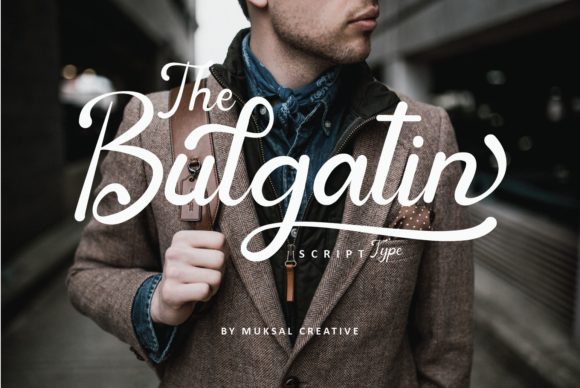
The Bulgatin Font: Elevating Designs with Elegance and Charm
I still remember the design project that led me to discover the Bulgatin font. I was working on a wedding invitation suite, and my client had a very specific vision: elegant, sophisticated, and utterly romantic. As I scrolled through font after font, nothing seemed quite right – until I stumbled upon Bulgatin. ✨ Its unique blend of charm and refinement instantly won me over, and I knew I had found the perfect fit.
So, what makes Bulgatin so special? Here are a few things I love about this beautiful font:
- ✅ Elegant and refined, perfect for high-end designs
- ✨ Unique character that sets it apart from more traditional fonts
- ✅ Highly versatile, suitable for a wide range of design projects
- ✨ Excellent for branding, headings, wedding designs, invitations, and more
Of course, no font is perfect, and Bulgatin does have a few small quirks:
- ⚠️ Some users may find the font a bit too ornate for certain projects
- 🤔 Limited availability of certain OpenType features in older software
The Story Behind Bulgatin
Bulgatin was designed with the intention of creating a font that exudes elegance and refinement. Its creator, a talented typographer, drew inspiration from classic calligraphy and modern script fonts to craft a unique and versatile typeface. 💫
| Author | Muksal Creative |
| What type of projects is Bulgatin best suited for? | Bulgatin is highly versatile and can be used for a wide range of design projects, including branding, headings, wedding designs, invitations, signatures, logos, labels, and more. |
| Is Bulgatin a difficult font to use? | Not at all! Bulgatin is relatively easy to use, even for those without extensive design experience. Its OpenType features and glyphs make it easy to add visual interest to your designs. |